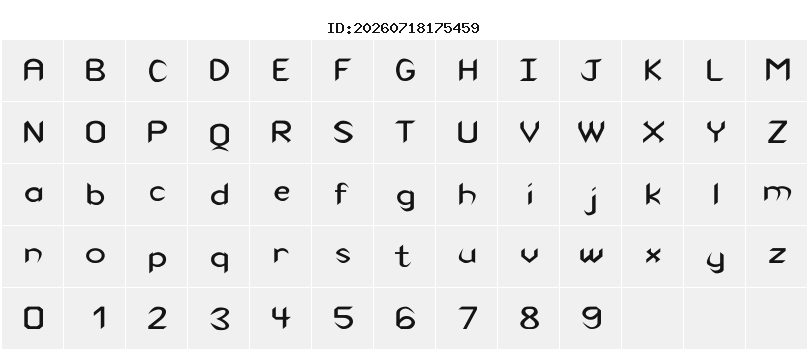
About Cuneiform Wd.ttf
Cuneiform Wd.ttf is a modern, elegant sans-serif font designed for ultimate readability and visual harmony. Perfect for branding, headlines, web design, and print materials.